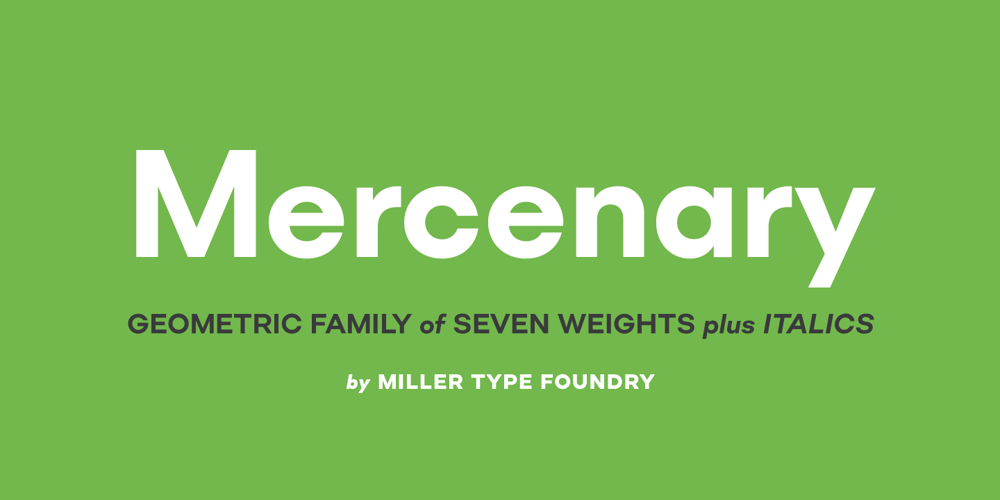
Mercenary Font Family was designed by Richard Miller and published by Miller Type Foundry. Mercenary contains 14 styles and family package options. Mercenary is a geometric font family made up of seven weights with italics. Great for almost any use, Mercenary is a versatile workhorse typeface. Mercenary has a neutral feel, allowing it to be used on numerous projects across different platforms.